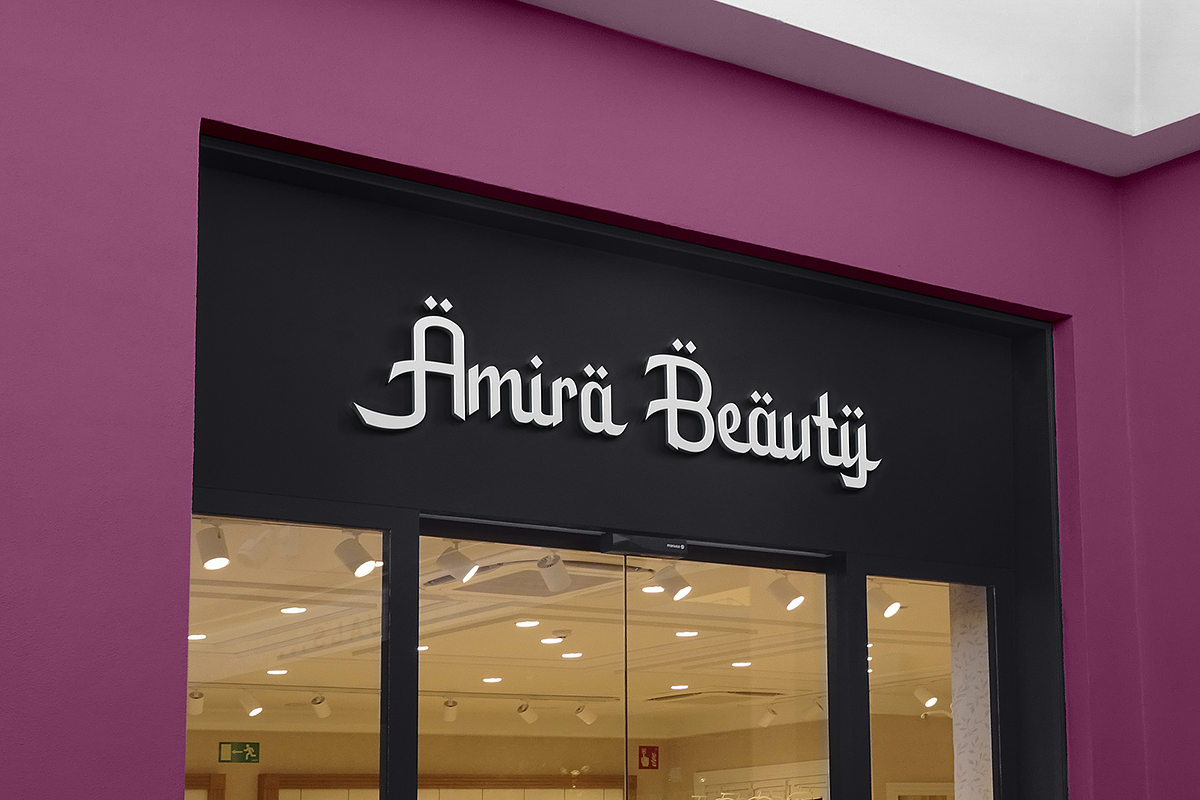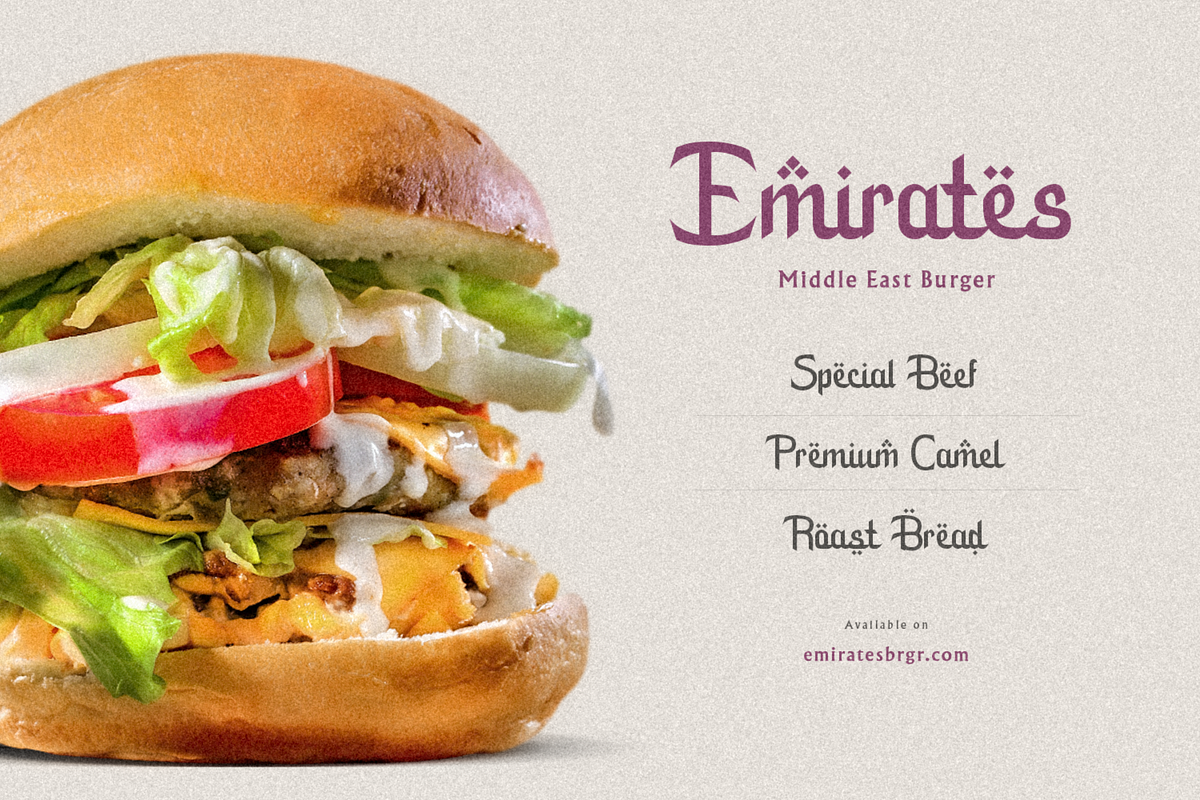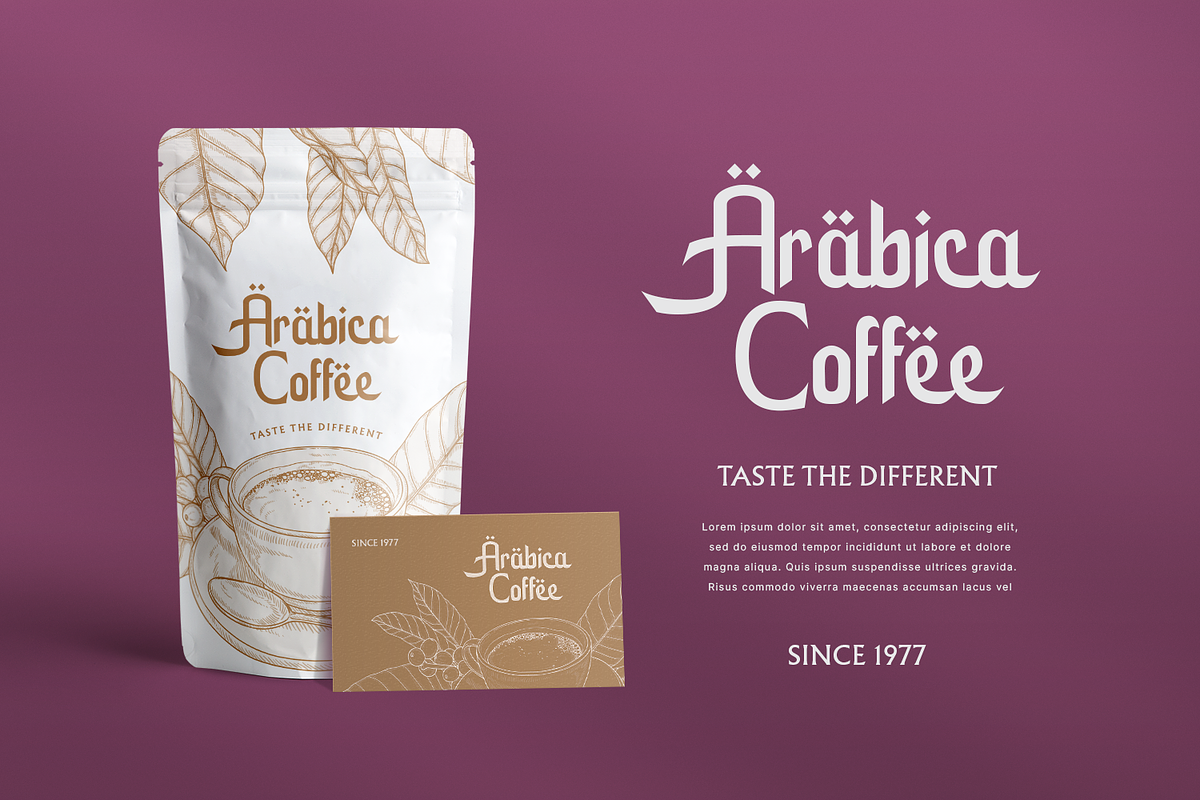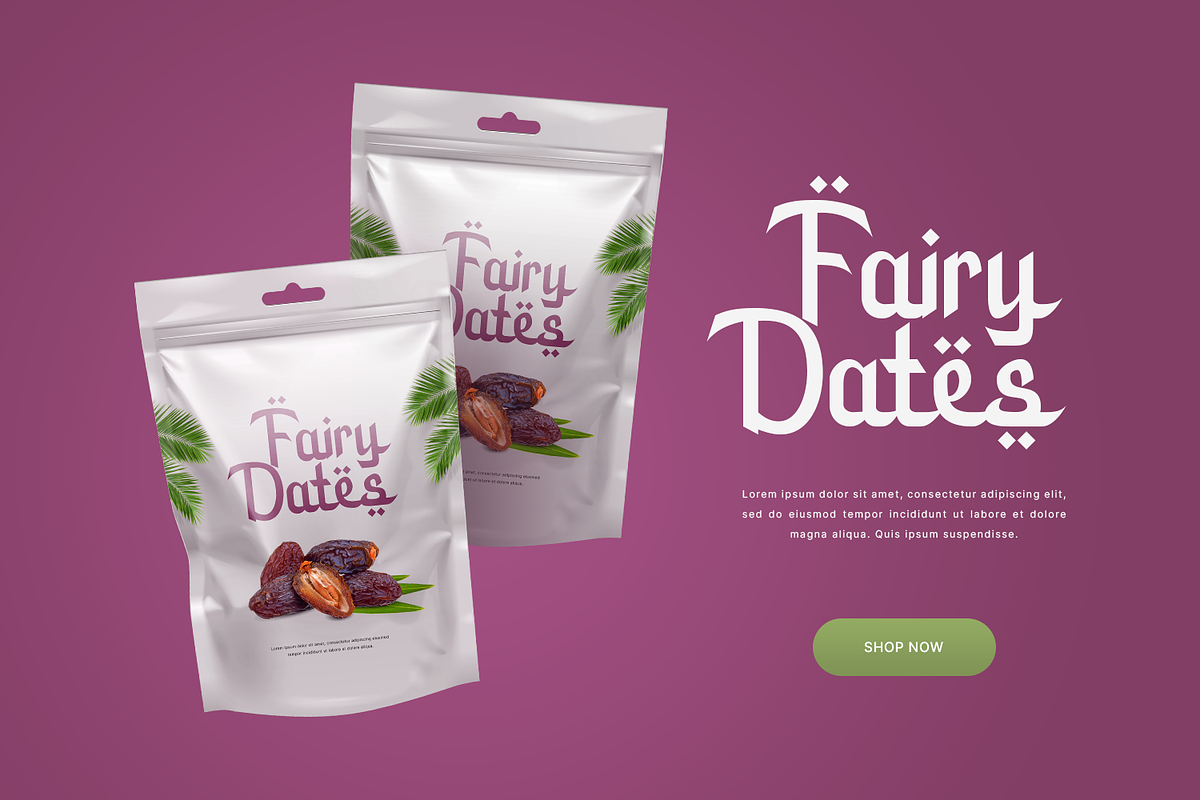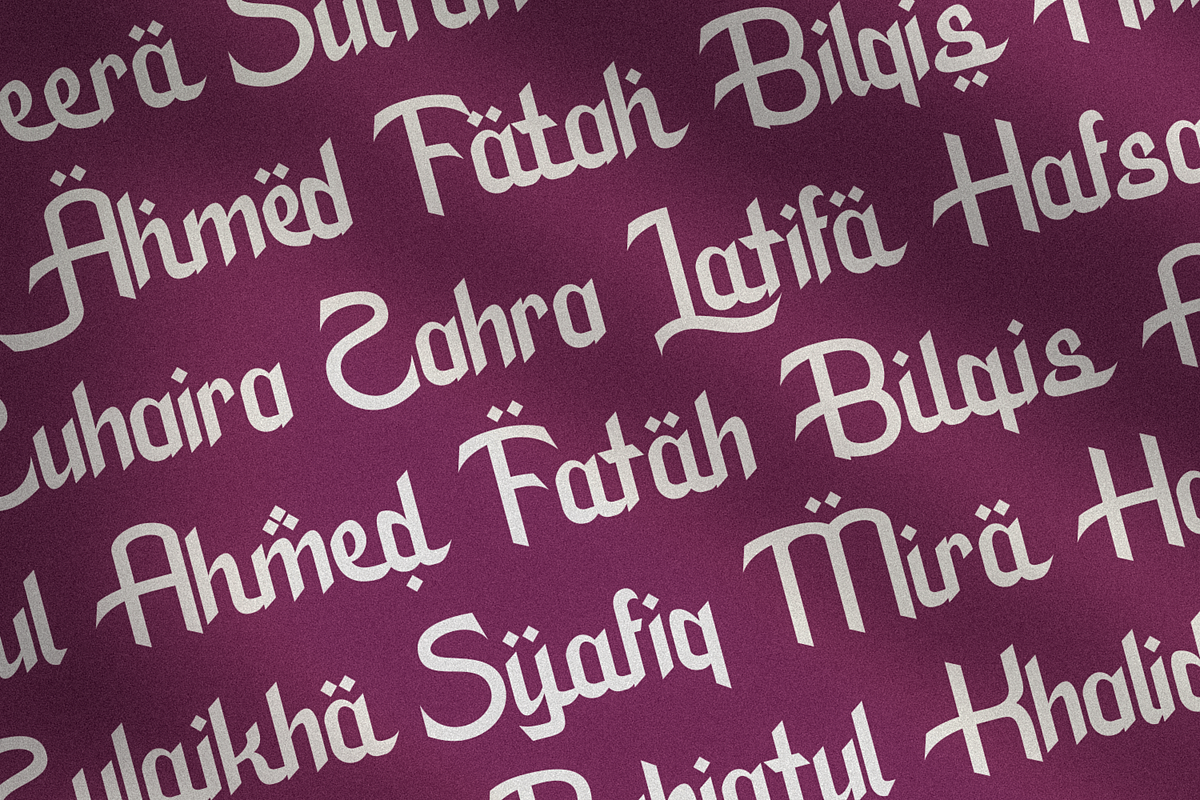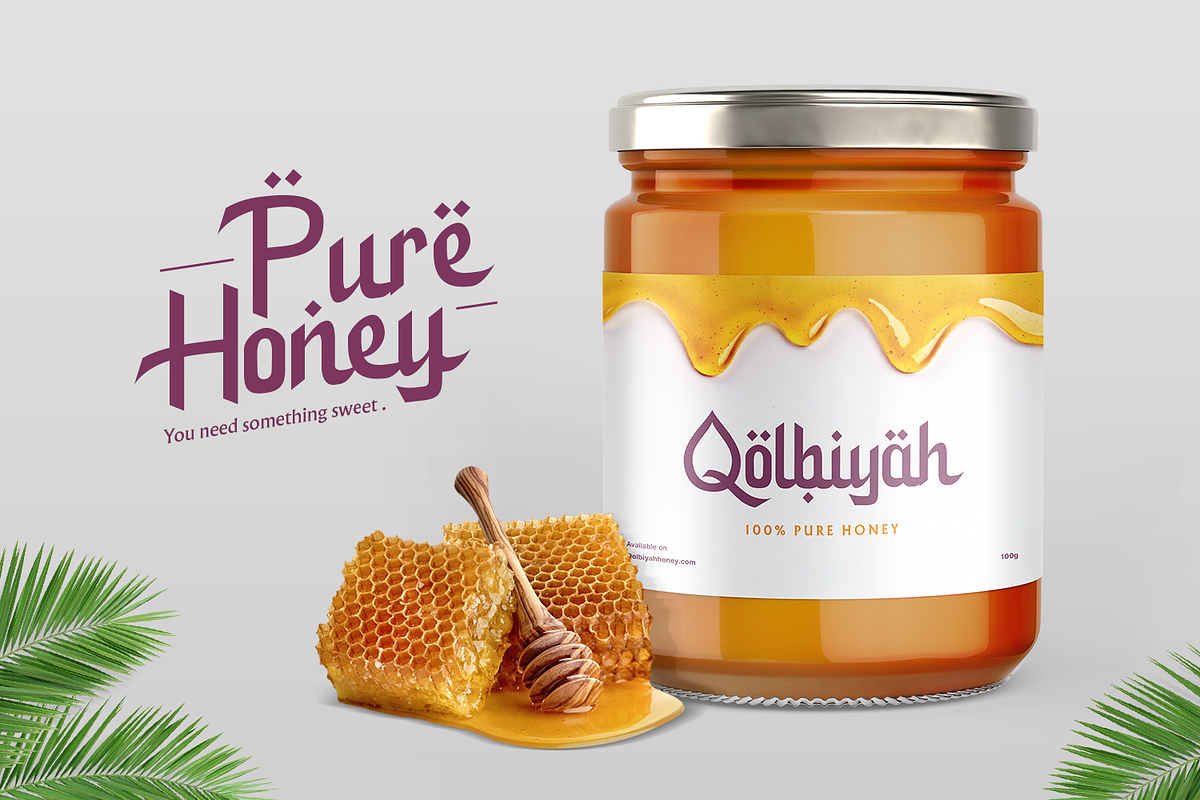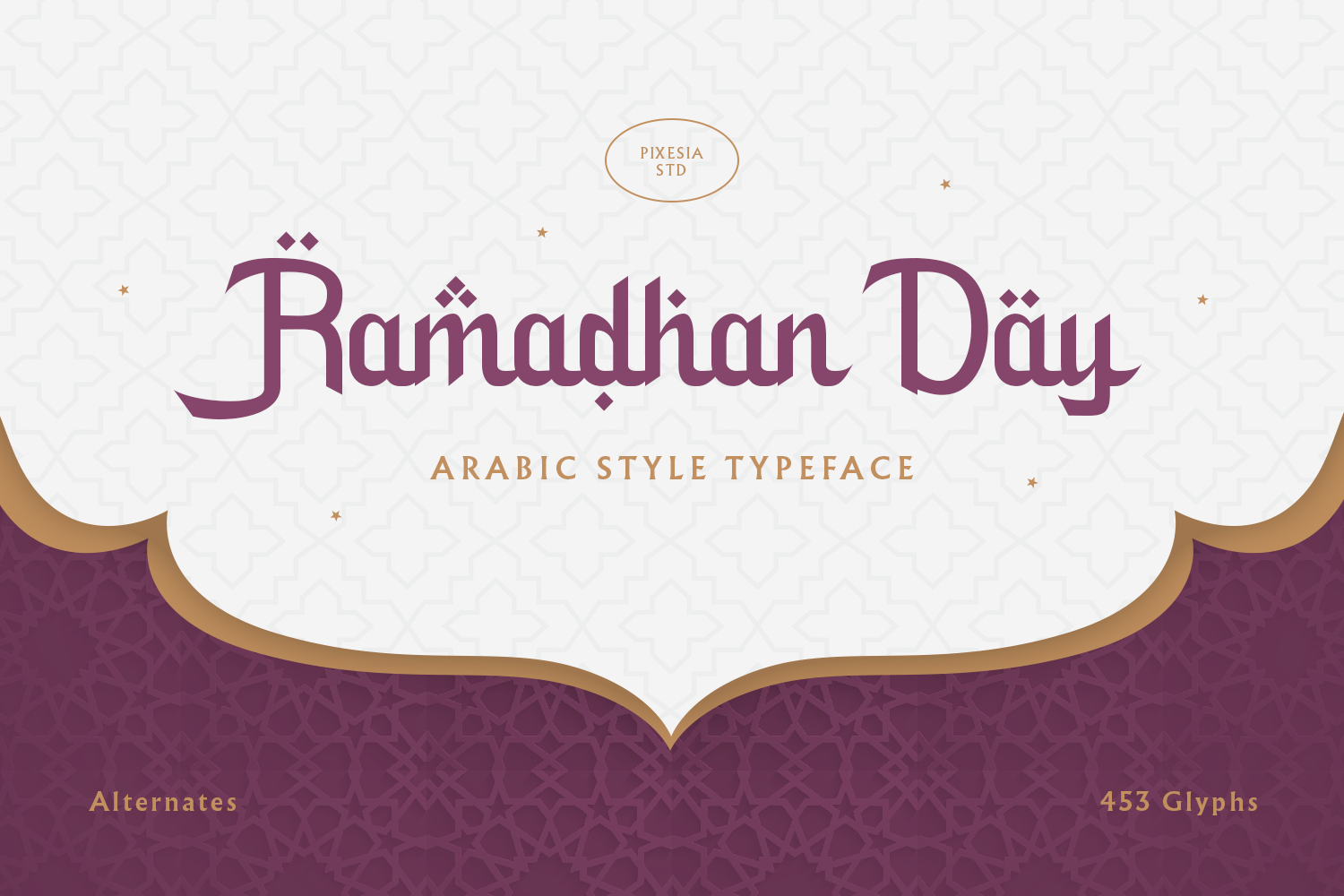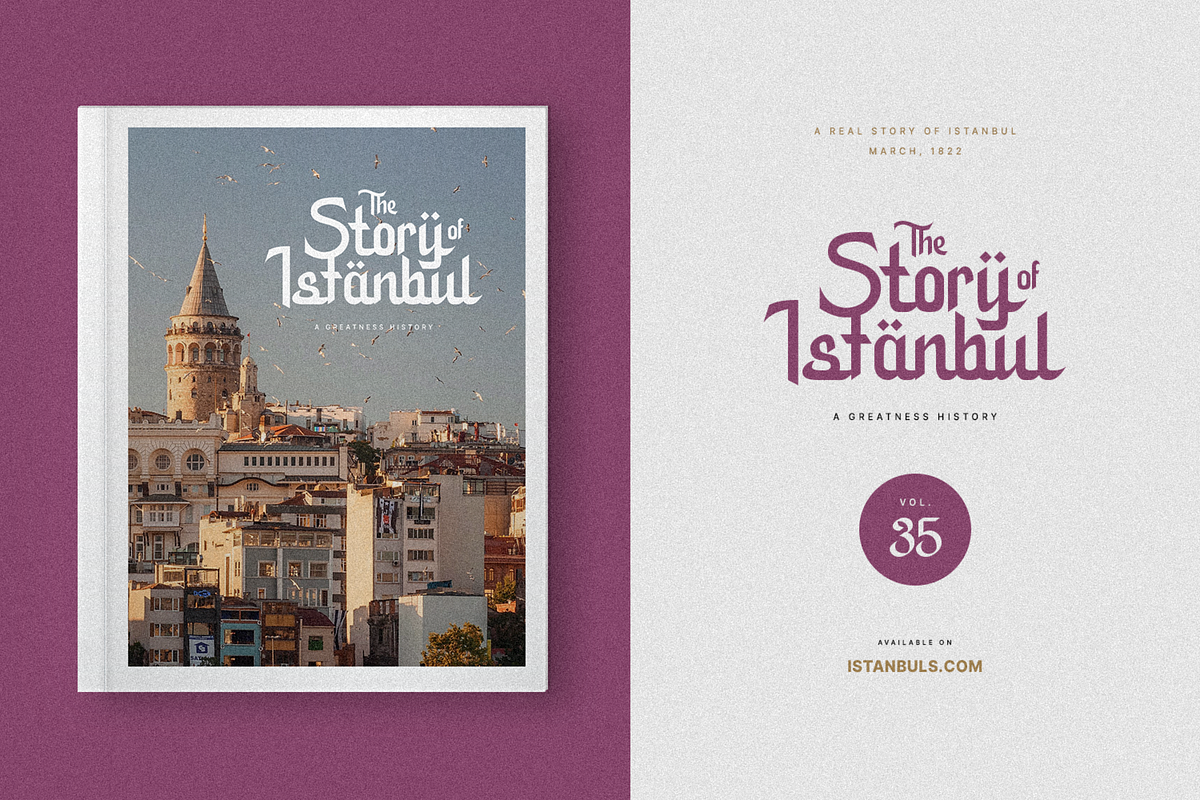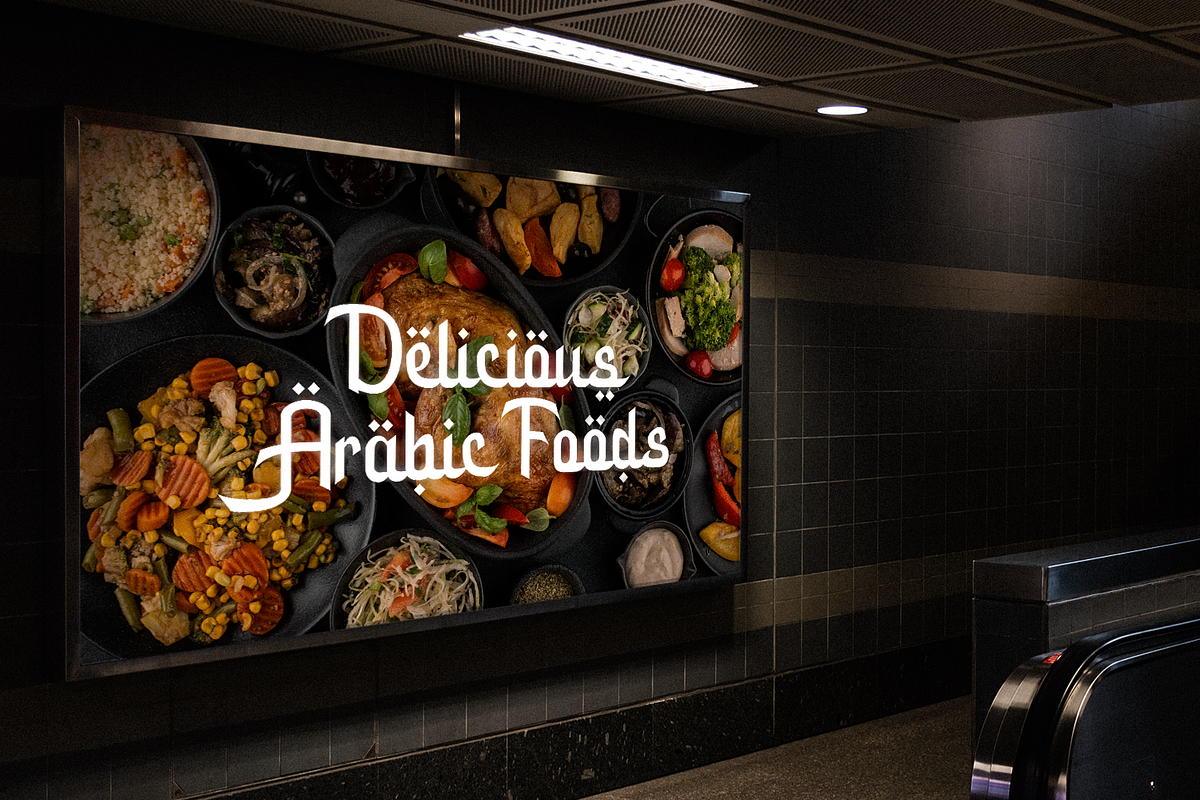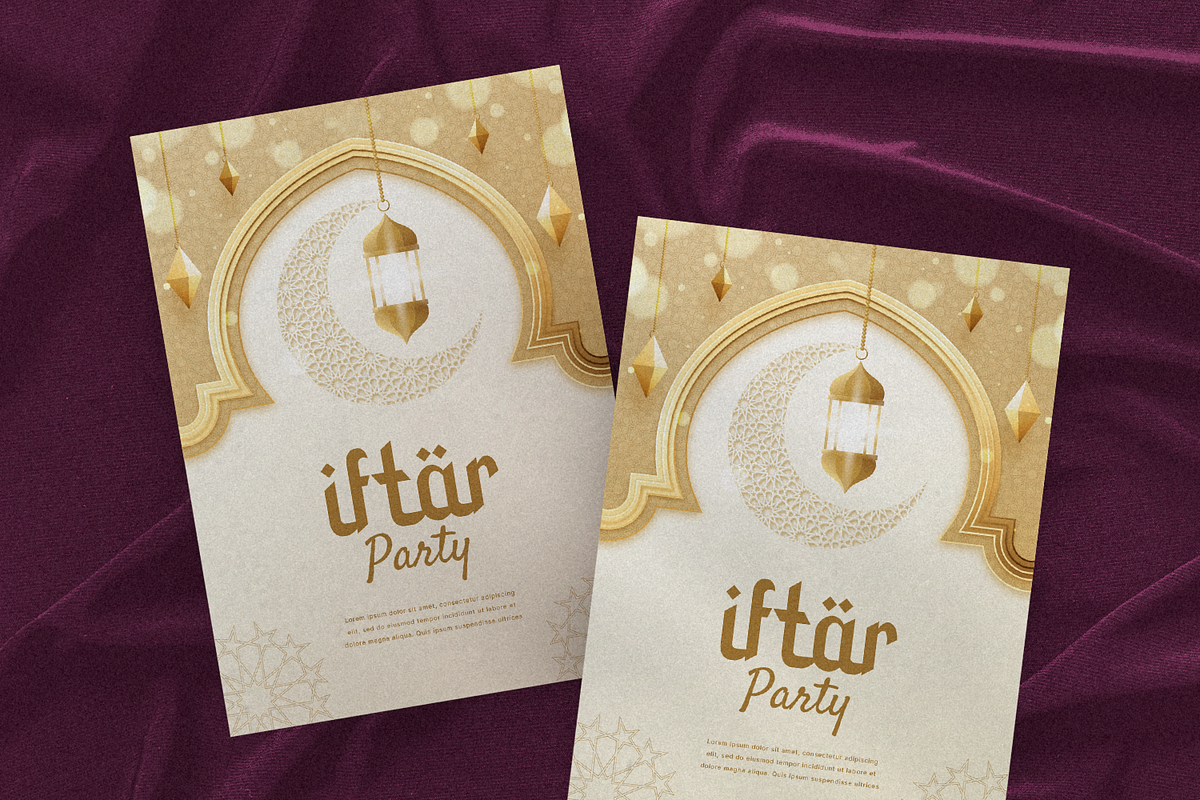
Ramadhan Day - Arabic Display Font
Introducing Ramadhan Day - Arabic Style Display Font
Ramadan Day is an Arabic display font that brings a modern and elegant look to your designs. With its flowing curves and sleek lines, this font is perfect for creating striking and sophisticated headlines or logos. It is also great for invitations, greeting cards, posters, and other designs related to the holy month of Ramadan. This font is fully Unicode-compliant, making it easy to use in a wide range of design software. Whether you're a professional designer or just looking to add some flair to your personal projects, Ramadan Day is a versatile and stylish choice.